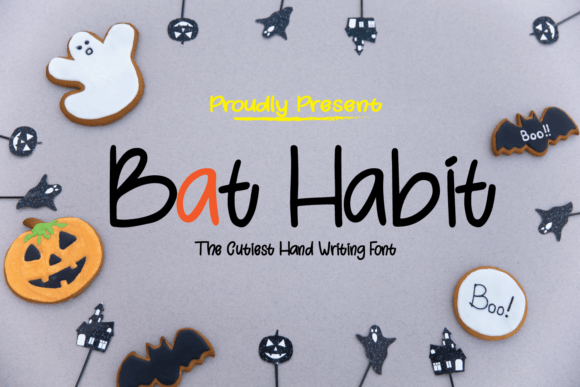
Introducing "Bat Habit" - A Handwritten Font with Delightful Charm
Journey into the realm of whimsical typography with "Bat Habit," a captivating handwritten font that exudes warmth and charm. This enchanting font family, gracefully crafted by the talented NulieQ, embodies the essence of heartfelt expression. "Bat Habit" is a script font that dances across the page, leaving a trail of elegance and creativity in its wake.
Unleash your imagination and embrace the boundless possibilities that lie within this versatile font. From invitations to advertisements, magazines to banners, logos to social media graphics, "Bat Habit" effortlessly adds a touch of magic to any design project. Its organic and fluid strokes create a sense of authenticity and human connection, making it the perfect choice for projects that call for a personal and heartfelt touch.
Picture the joy of receiving a wedding invitation adorned with the graceful curves and swirls of "Bat Habit." The font's playful yet sophisticated style adds an extra layer of delight to your special day, setting the tone for a celebration filled with love and laughter.
"Bat Habit" is not just a font; it's an artistic expression that breathes life into your words. Its carefully crafted characters, each with its unique personality, evoke a sense of nostalgia and charm, transporting readers to a world of imagination and wonder.
If you're seeking a font that captivates and inspires, look no further than "Bat Habit." Its versatility knows no bounds, making it the perfect companion for any creative endeavor.